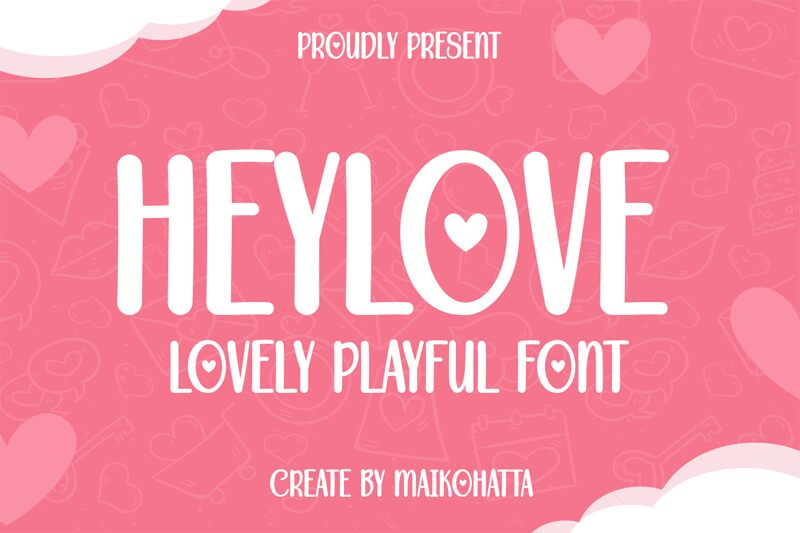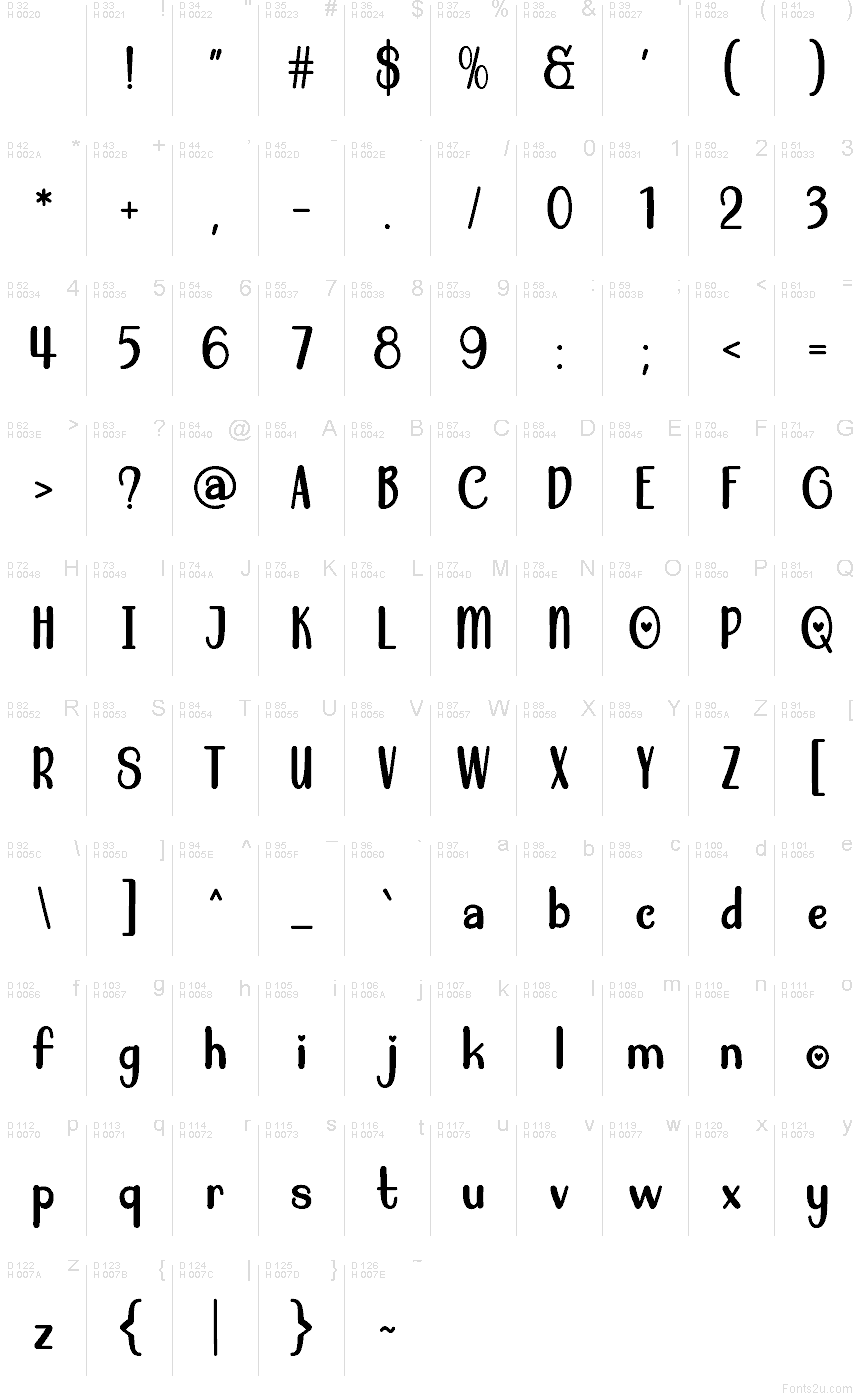
HEYLOVE
Heylove font by Gilang Ternadho is a free holiday valentine typeface that turns every word into a little love note. Tall, rounded letters with chunky strokes feel soft and hand-cut, while the heart tucked inside the “O” adds a playful, made-with-care touch. The spacing is generous and breezy, so short phrases look bold and legible even at smaller sizes, like stickers or tags.
Using Heylove, you can dress up valentines, wedding favors, greeting cards, party invitations, social posts, gift packaging, and classroom crafts with the same joyful energy. This free font shines on big, punchy titles and short messages; pair it with a simple sans or handwritten script for body text to keep things readable. Try setting Heylove a bit larger than usual to really show off those cozy, heart-filled forms.